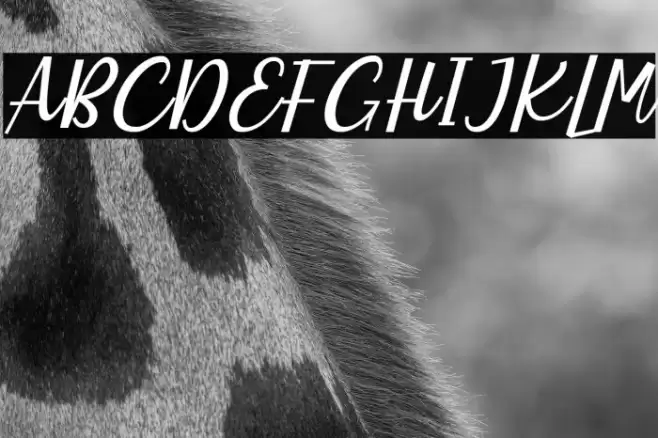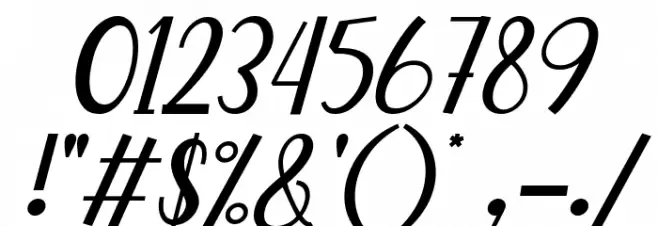
Charlote Earle Italic Font
Charlote Earle Italic Description
This font features a dynamic and flowing script style, characterized by its elegant and cursive letterforms. The uppercase letters exhibit a sophisticated slant, with smooth curves and a sense of motion, while the lowercase letters maintain a consistent fluidity, enhancing readability. The numerals are stylishly integrated, complementing the overall aesthetic. Special characters are thoughtfully designed, maintaining the font's cohesive look. The font's italic nature adds a touch of elegance, making it suitable for creative and formal applications.
A dynamic and elegant script font with a flowing, italic style from Uncategorized fonts.
- Proposed Projects: Ideal for wedding invitations, greeting cards, branding, and logo design.
- Overall Style: Elegant
- Use Case: Logos, Invitations, Branding